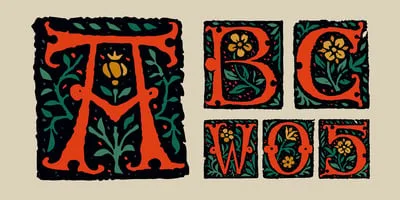
Antoine Drop Caps Font
The Antoine Drop Caps Font is perfect for elegant editorial design projects including luxury magazine layouts, classical book publishing, ornate manuscript recreations, sophisticated wedding invitations, premium literary publications, historical document designs, formal certificate creation, and distinguished cultural institution materials. This decorative typeface brings ornamental sophistication and traditional publishing elegance to any design project requiring beautiful initial letters and classical typographic embellishment.
What makes Antoine Drop Caps Font so exciting is its exquisite collection of ornamental capital letters with intricate decorative details that capture the essence of classical manuscript illumination and traditional publishing artistry. The letters feature elaborate ornamental characteristics with historical calligraphic influences that create an immediate sense of literary sophistication and classical elegance. This distinctive ornamental character makes it perfect for projects that want to communicate cultural refinement, literary heritage, and the timeless appeal of traditional publishing craftsmanship and manuscript artistry.
The Antoine Drop Caps Font family typically includes an extensive collection of decorative capital letters, often with multiple ornamental variations and classical flourishes. Many versions feature period-appropriate symbols, manuscript-inspired elements, and traditional publishing ornaments that enhance its authenticity for editorial and cultural applications.
Whether you're designing for publishing houses, cultural institutions, or luxury editorial projects, Antoine Drop Caps Font offers the perfect solution for projects that need to convey literary elegance and classical sophistication. This font transforms standard text openings into distinguished designs that immediately communicate cultural authority, literary tradition, and the refined beauty of classical publishing craftsmanship to audiences appreciating editorial excellence and traditional typographic artistry.